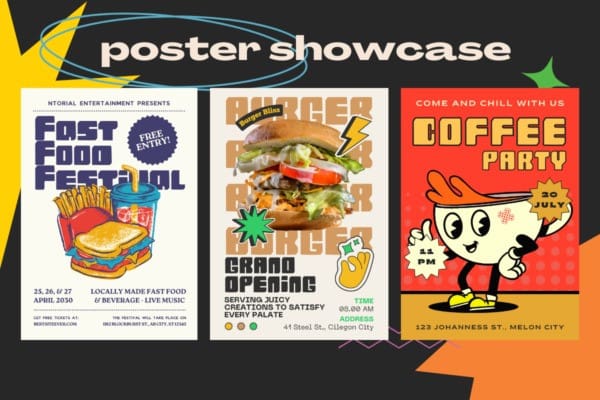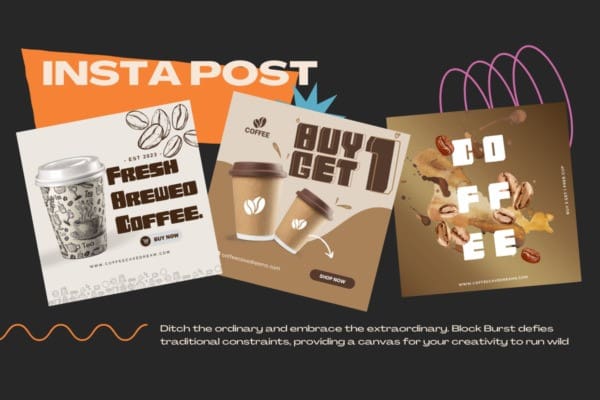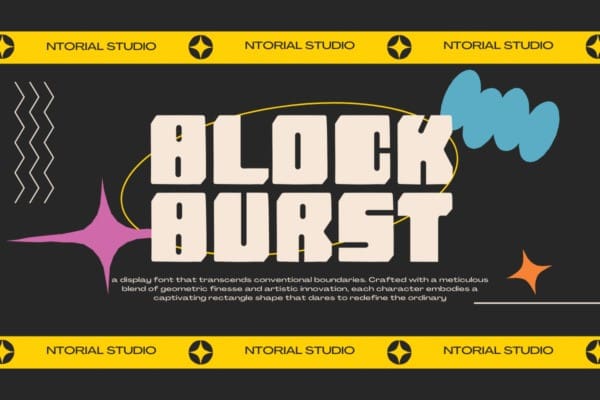
Block Burst Font
Block Burst Font – Where Bold Meets Bespoke! 🌟 Unleash the Power of Precision 🌟 Elevate your design game with BlockBurst, a display font that transcends conventional boundaries. Crafted with a meticulous blend of geometric finesse and artistic innovation, each character embodies a captivating rectangle shape that dares to redefine the ordinary. 🔷 Key Features: ✨ Unique Aesthetics: Block Burst boasts a distinctive rectangular design that captures attention instantly. Its bold strokes and clean lines create a visual symphony that stands out in any creative endeavor. ✨ Versatility Unleashed: From sleek modernity to vintage charm, this font seamlessly adapts to your vision.
Whether you’re designing a logo, headline, or poster, Block Burst brings unparalleled versatility to your typographic toolkit. ✨ Precision Personified: Every character is a testament to precision and attention to detail. The seamless alignment and balance make Block Burst not just a font but a design masterpiece in its own right. ✨ Impactful Expressions: Be it a branding project, social media post, or print material, BlockBurst injects a bold and powerful personality into your words. Let your message resonate with impact and clarity. 🔶 Why Choose BlockBurst? 🚀 Break the Mold: Ditch the ordinary and embrace the extraordinary.
BlockBurst defies traditional constraints, providing a canvas for your creativity to run wild. 🎨 Seamless Integration: Whether you’re a seasoned designer or a newcomer, BlockBurst integrates effortlessly into your design process. Let the font do the talking while you focus on bringing your vision to life. 🌈 Limitless Possibilities: The unique rectangle shapes open up a realm of design possibilities. Experiment with layering, color, and texture to create visuals that leave a lasting impression. Unleash the bold, embrace the bespoke – choose BlockBurst for a typographic journey like never before. Transform your designs into statements with this avant-garde display font.